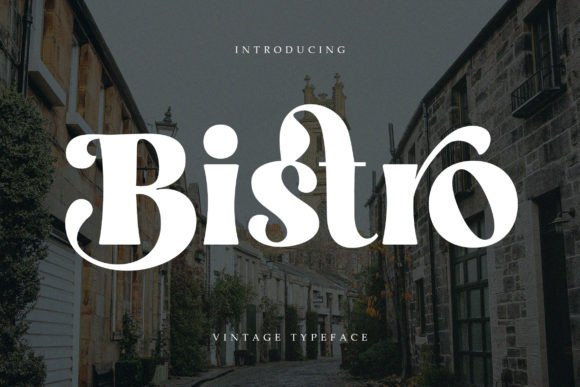
The Bistro Font: Elevate Your Designs with Elegance
I’ll never forget the moment I stumbled upon the Bistro font. I was working on a branding project for a trendy new café, and I was determined to find the perfect font to capture their sophisticated yet approachable vibe. After hours of scouring through font libraries, I finally stumbled upon Bistro – and it was love at first sight! ✨
This stylish and elegant serif font has a way of making every design project feel elevated and refined. In this article, I’ll dive into what makes Bistro so special, its potential limitations, and provide a practical guide on how to use it on various platforms.
- ✨ Elegant and refined design that’s perfect for high-end branding projects
- ✅ Exceptional readability, even at small font sizes
- 🎨 Beautifully crafted OpenType features, including stylistic alternates and glyphs
- 💻 Highly versatile and works well across various design platforms
While Bistro is an exceptional font, there are a few things to keep in mind: 🤔
- ⚠️ Some users may find the font’s elegance a bit too refined for certain design projects, such as bold or playful branding
- ⚠️ Limited availability of condensed or expanded font variations
Bistro was designed by a team of typographers who aimed to create a font that would bring a touch of elegance and sophistication to any design project. Inspired by classic serif fonts, Bistro’s designers worked tirelessly to craft a font that would be both refined and versatile. The result is a font that’s perfect for high-end branding projects, luxury packaging, and elegant editorial design.
Q: What type of projects is Bistro best suited for?
A: Bistro is ideal for high-end branding projects, luxury packaging, elegant editorial design, and any project that requires a touch of sophistication and elegance.
Q: Is Bistro available in multiple font weights?
A: Yes, Bistro is available in multiple font weights, making it versatile for a range of design applications.